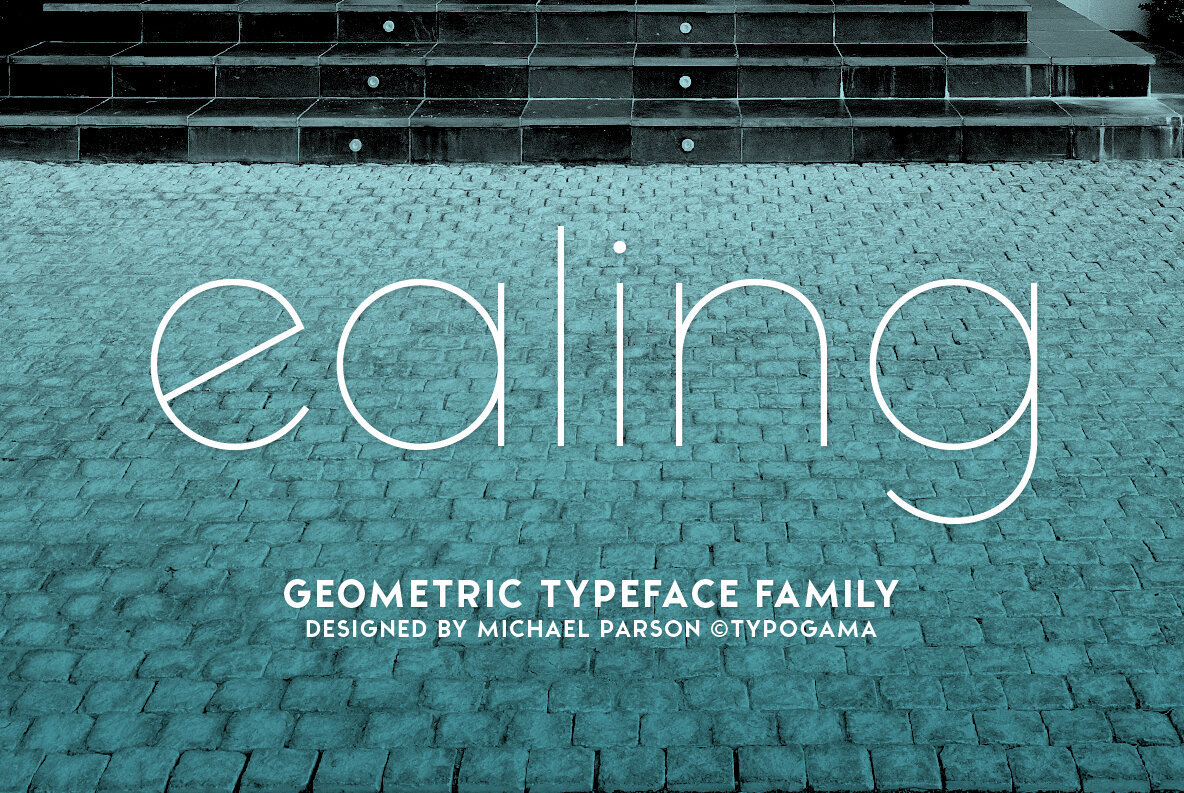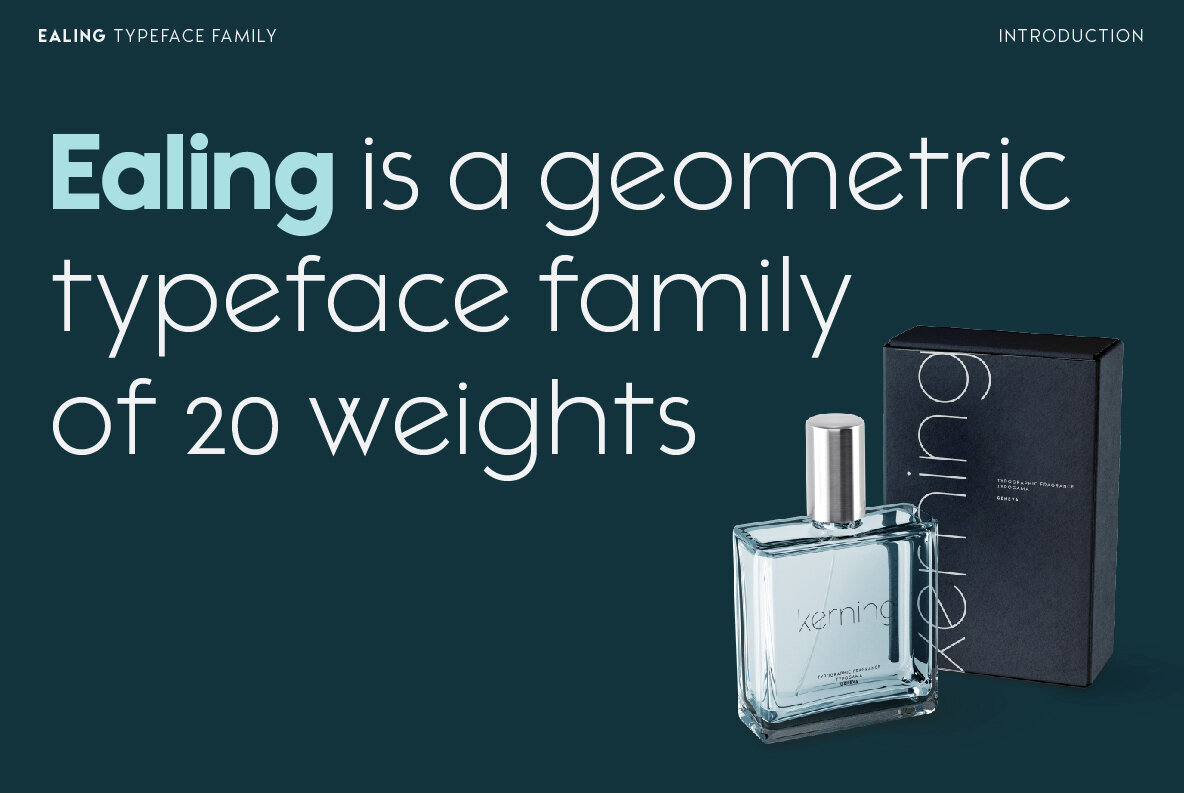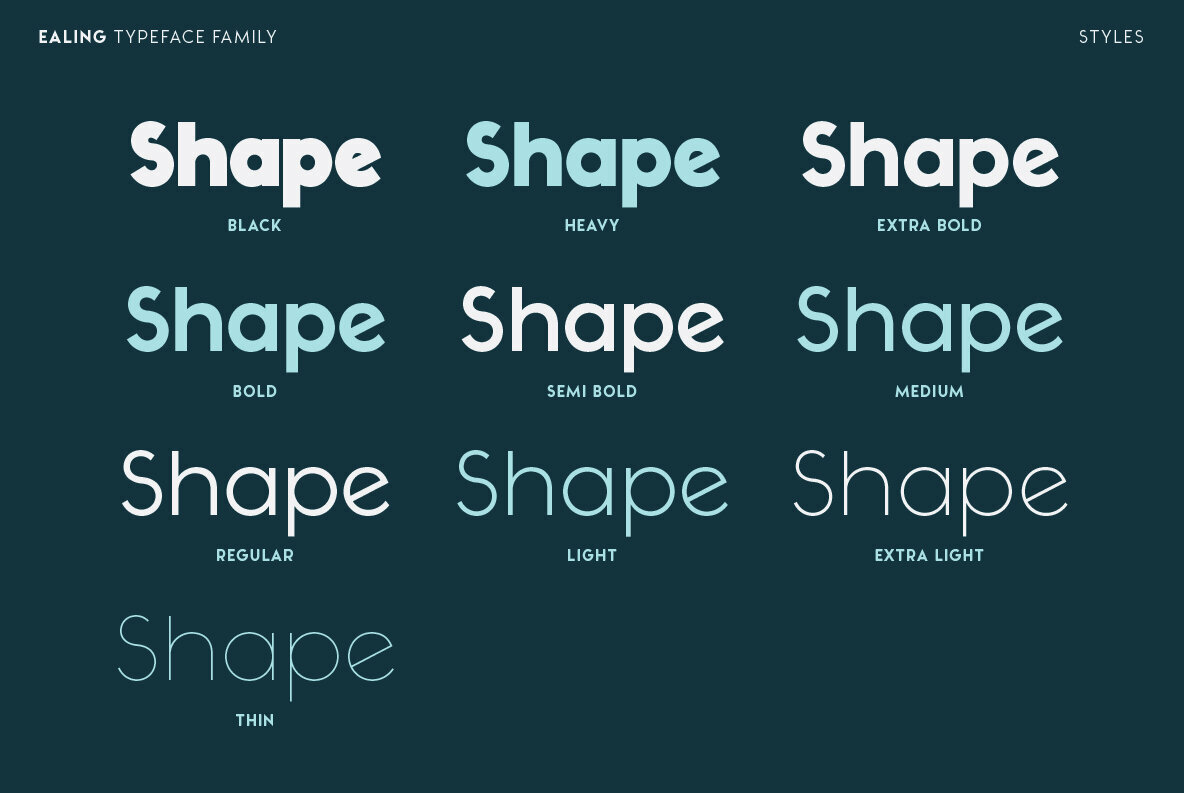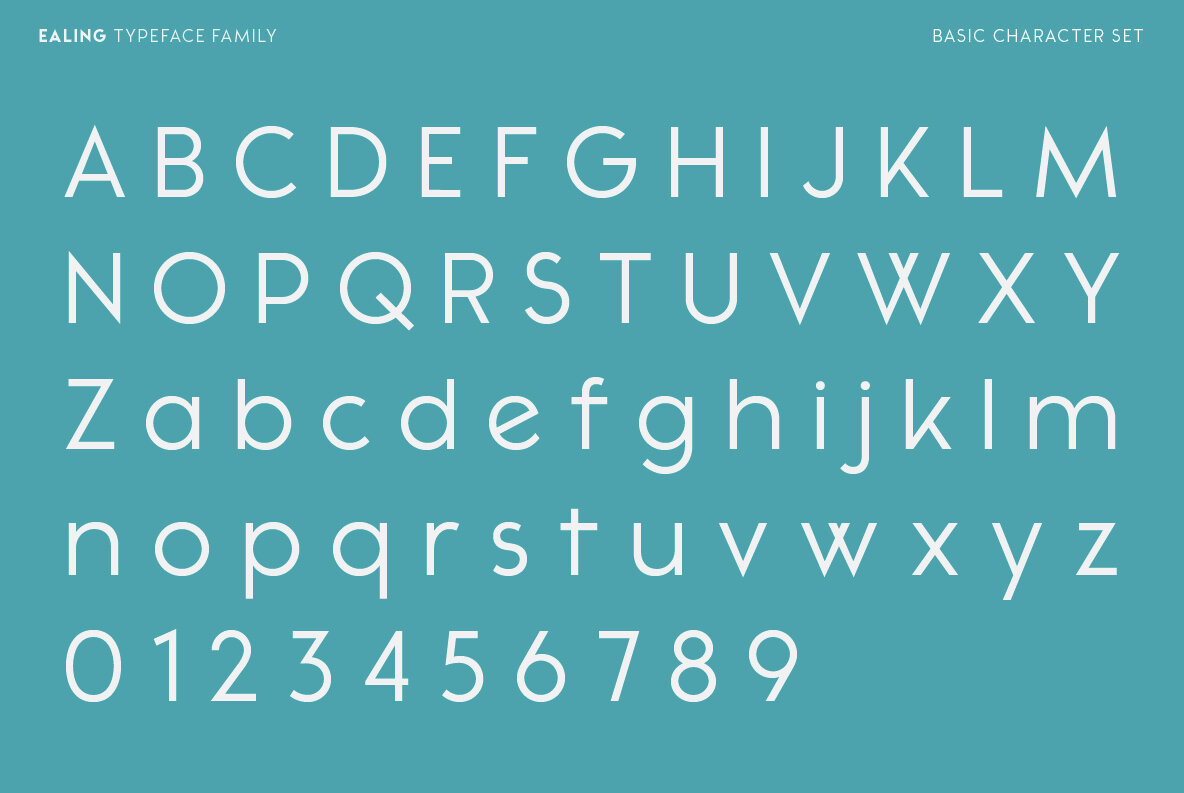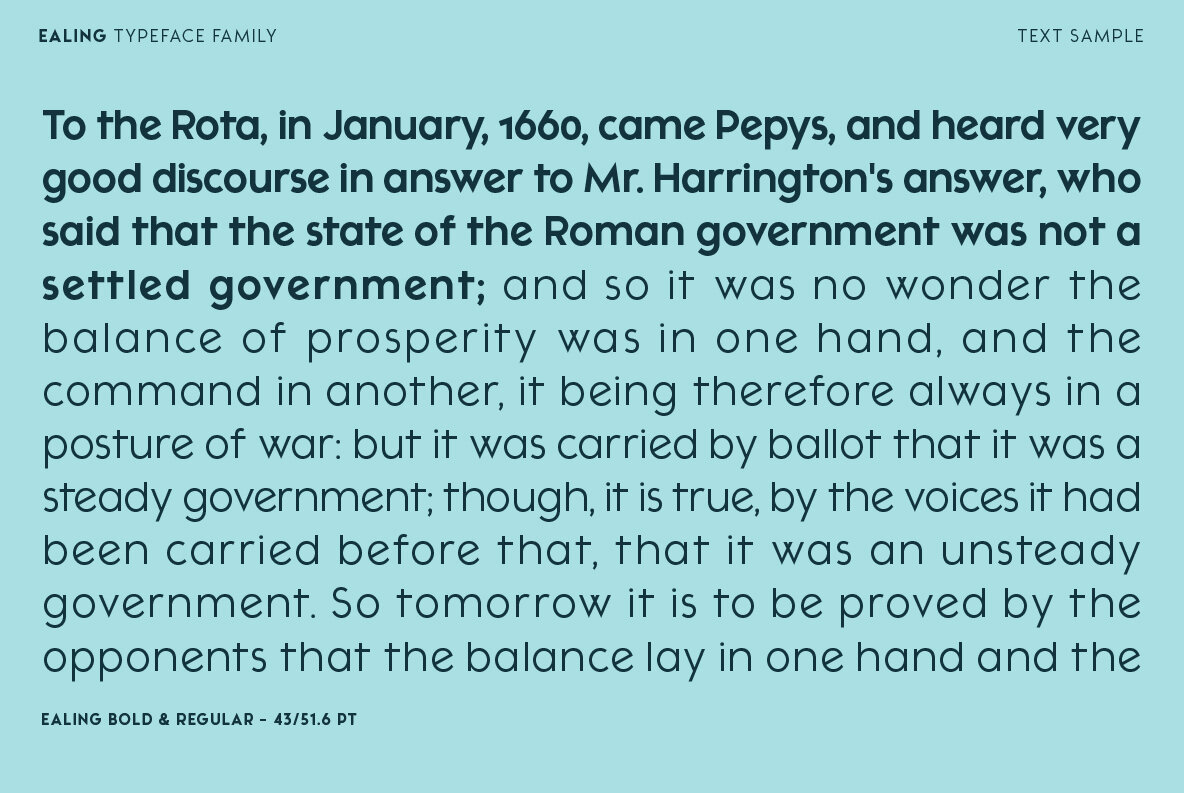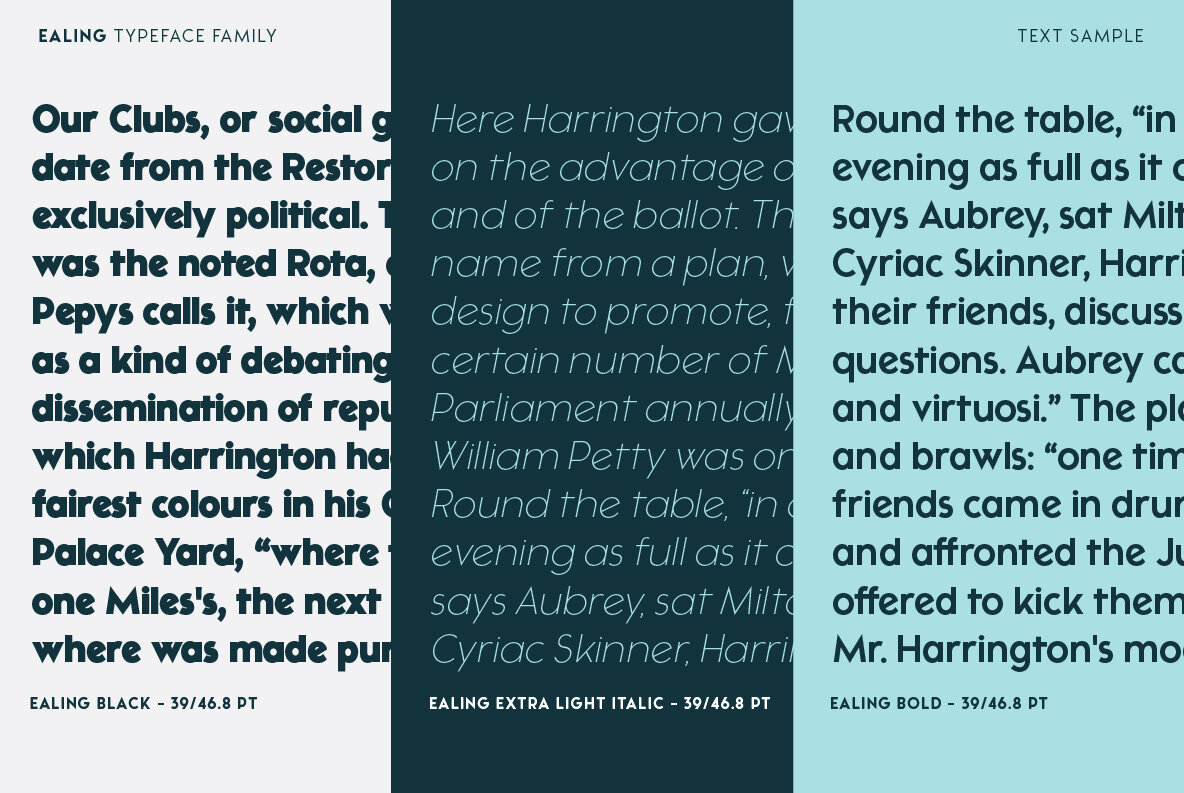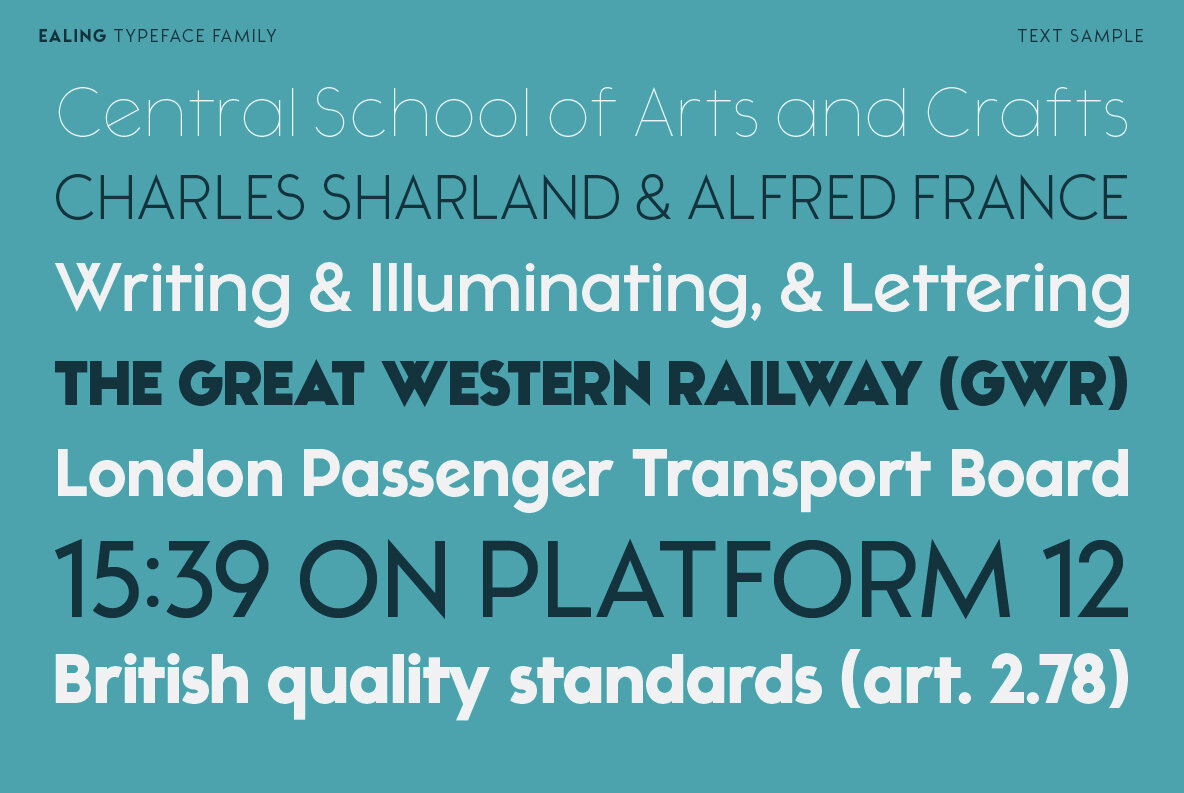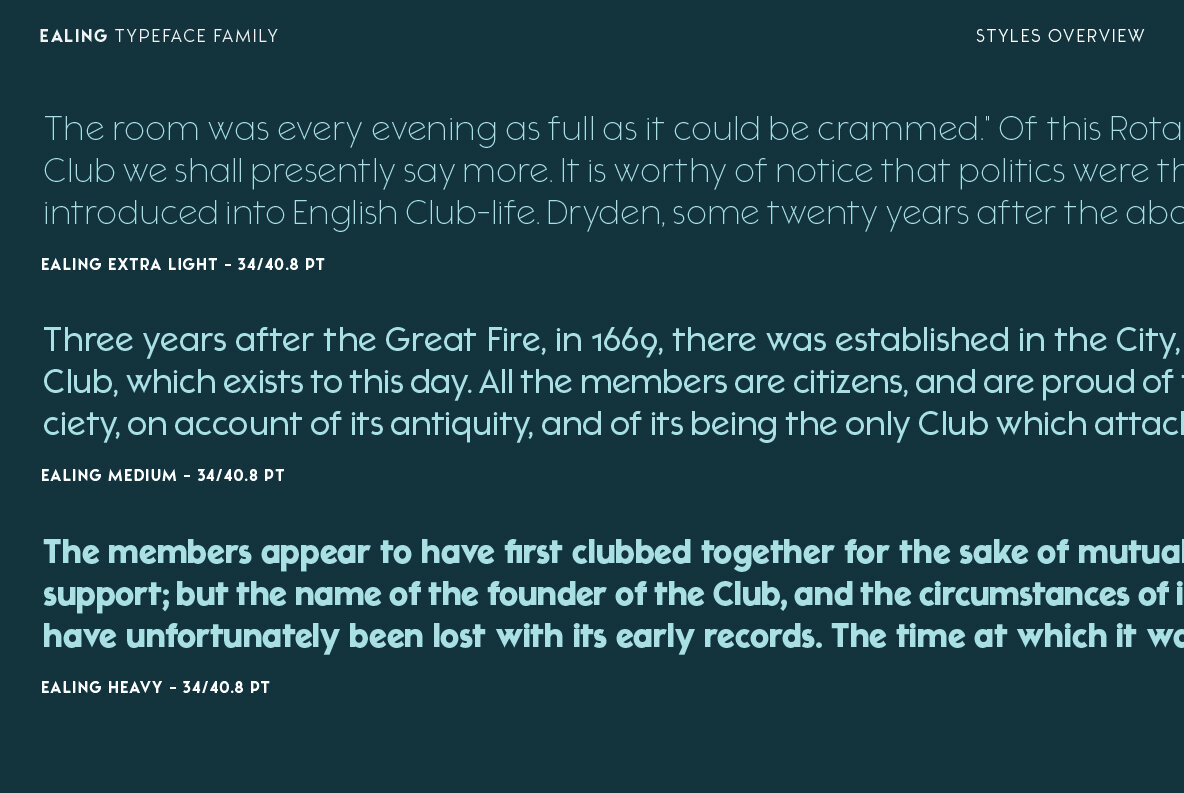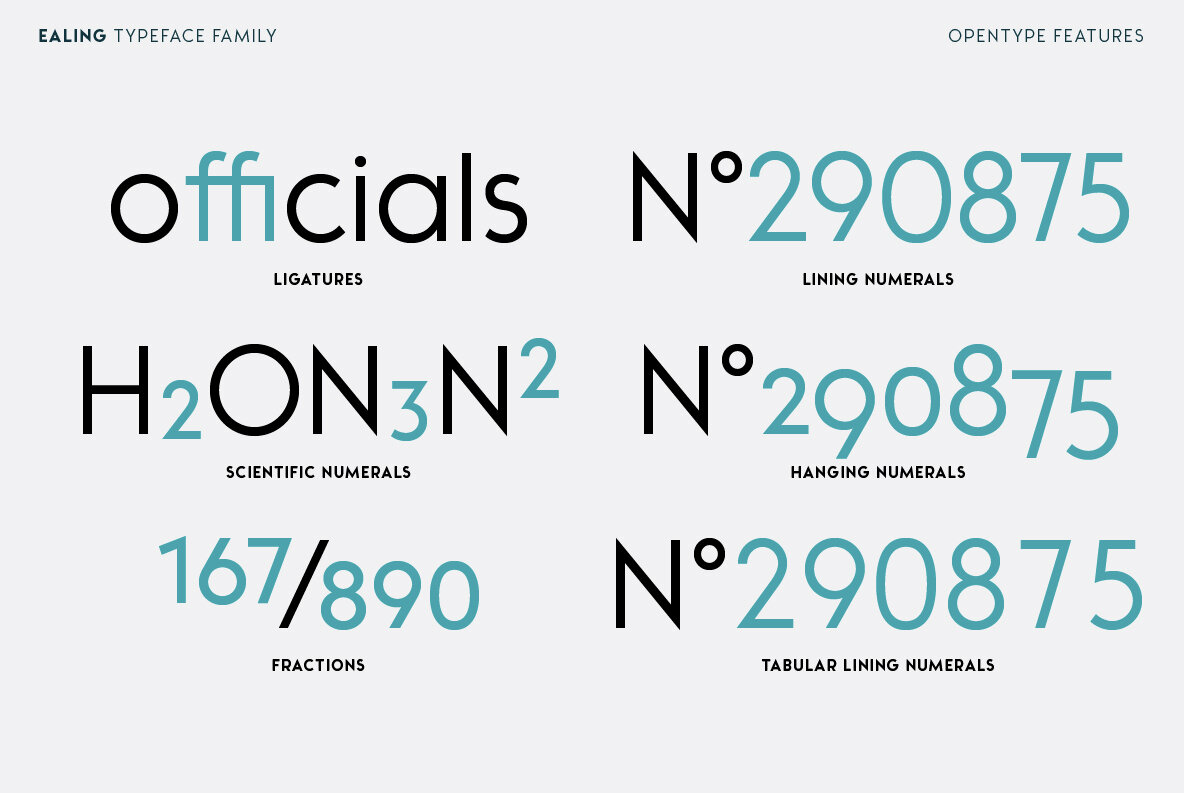
Ealing Font
Ealing is a geometric typeface that was inspired by the design ideas of the early modernists. With a near monolinear stroke and open, solid shapes, the family ranges from a fine and delicate Thin weight all the way through to a dark, bold weight to offer a versatile and flexible tool. With its focus on form, it is best suited for display or large settings were its constructed shape will shine. With twenty weights or a single variable font, Ealing covers the expanded latin character set to cover most latin based languages. The family is further enhanced by a range of Opentype features, that include ligatures, numeral styles and fractions and will add further choice to any layout. Language Support: ISO 1, ISO 2, ISO 3, ISO 4
After completing his studies in Switzerland, Michael Parson set up an independant graphic design studio in Geneva in 2002, focused on typography and illustration.Since then, he has worked in a wide range of medias and projects as well as releasing a series of typeface designs with Linotype, T26 and YouWork...
- Extended the weight range to a darker style, the family now contains 20 weights (6 before)
- Extended the character set to include extended Latin.
- Extended the range of numerals to include lining (default), hanging & scientific forms.
- Expanded the Opentype features to cover ligatures, numerals & Fractions